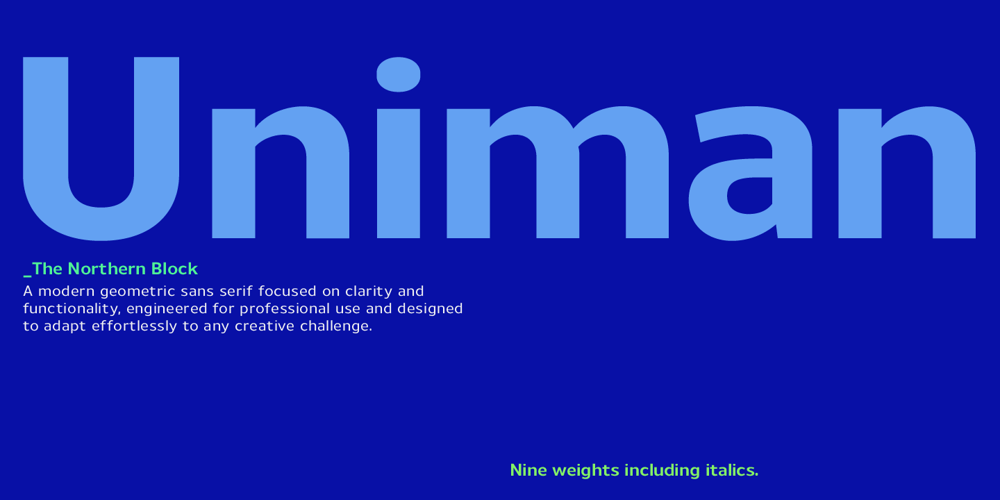
Uniman
Uniman font
Uniman Font Family was designed by Jonathan Hill and published by The Northern Block. Uniman contains 18 styles and family package options. Uniman is a refined and contemporary sans serif typeface, designed to offer clarity and simplicity in every application. Its harmonious blend of straight lines and precision curves ensures adaptability, making it suitable for everything from web interfaces to print design. Crafted with professional users in mind, it comes in 9 carefully balanced weights with matching italics. With 540 characters, 5 numeral styles, small caps, stylistic alternates, and meticulously fine-tuned kerning, Uniman provides extensive OpenType features, offering designers maximum creative flexibility across a variety of projects.